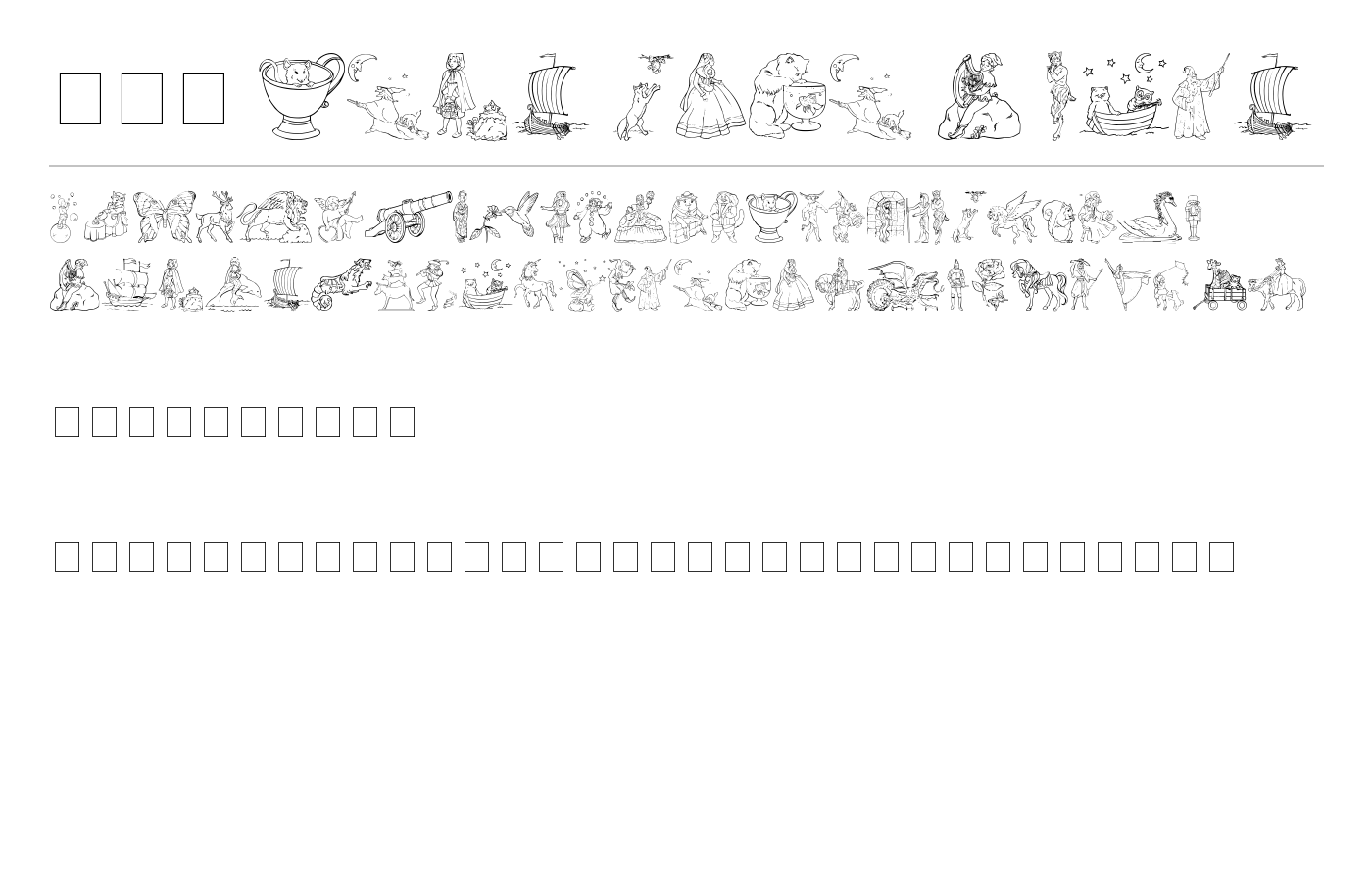
001 Once Upon a Time is a decorative font filled with detailed, whimsical illustrations inspired by classic fairy tales and fantasy themes. Rather than traditional letters, it uses charming storybook characters and scenes, making it perfect for projects that seek a playful, magical, and nostalgic atmosphere. This font works wonderfully in children's books, invitations, or themed branding where storytelling and imagination are key.
001 Once Upon a Time Font
About 001 Once Upon a Time Font
| Font family | 001 Once Upon a Time Font |